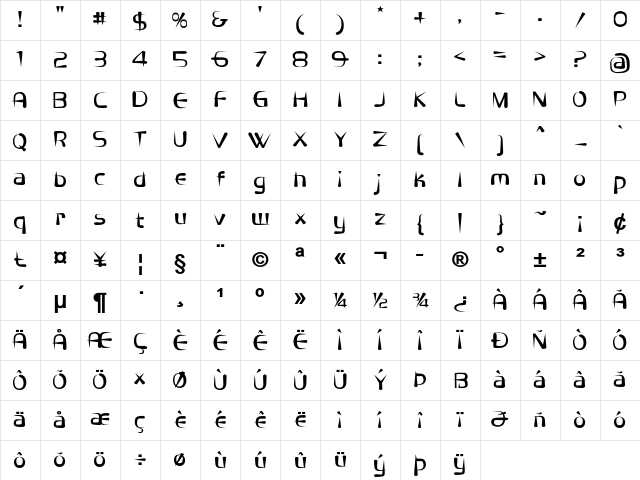
Livian Bold Free Font
Design Context for Livian
Livian is a composed and adaptable typeface that performs quietly and consistently across a wide range of design contexts. Its bold stroke weight gives it real presence on the page.
Pro Tip: Use Livian in both headline and body roles to test its range before committing to a single application.